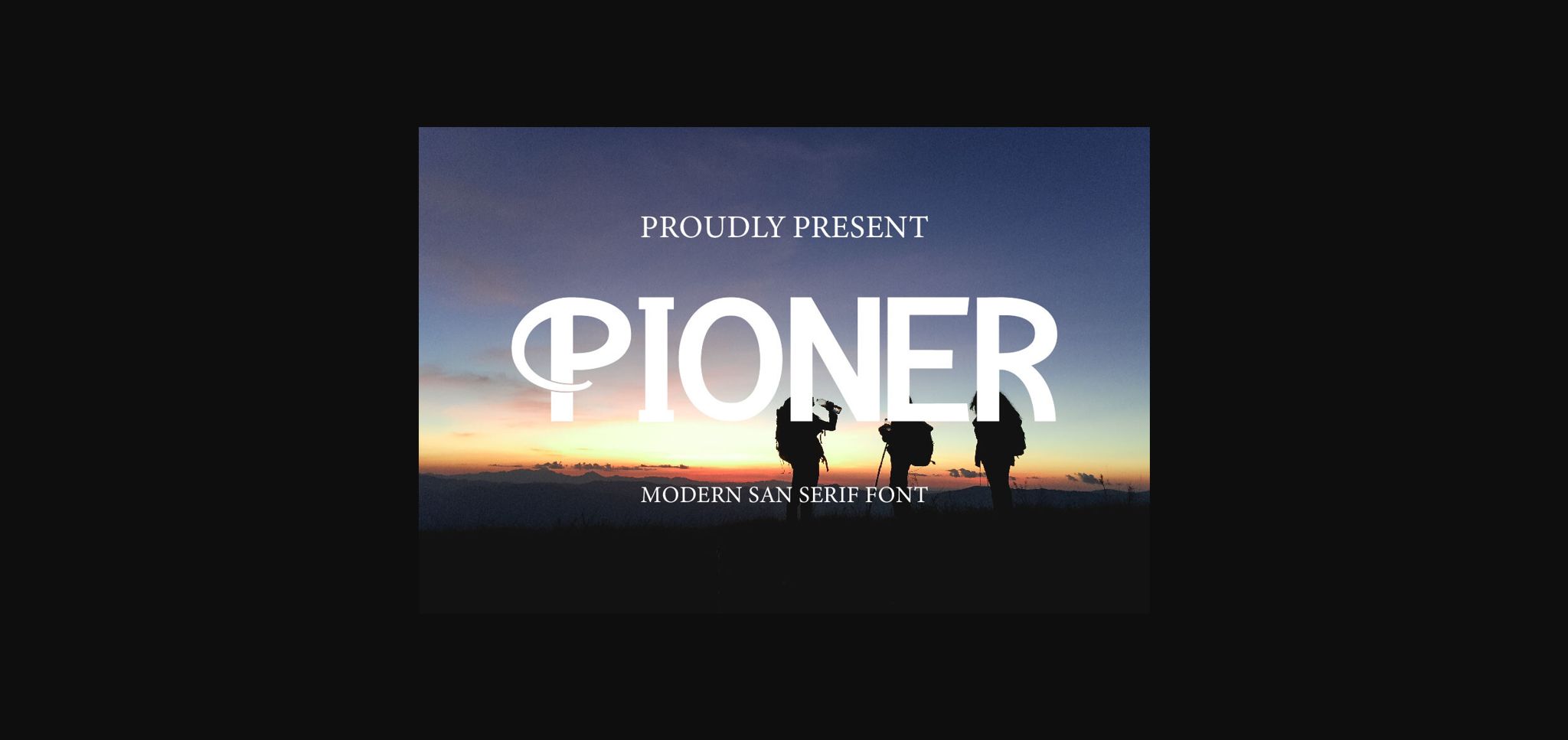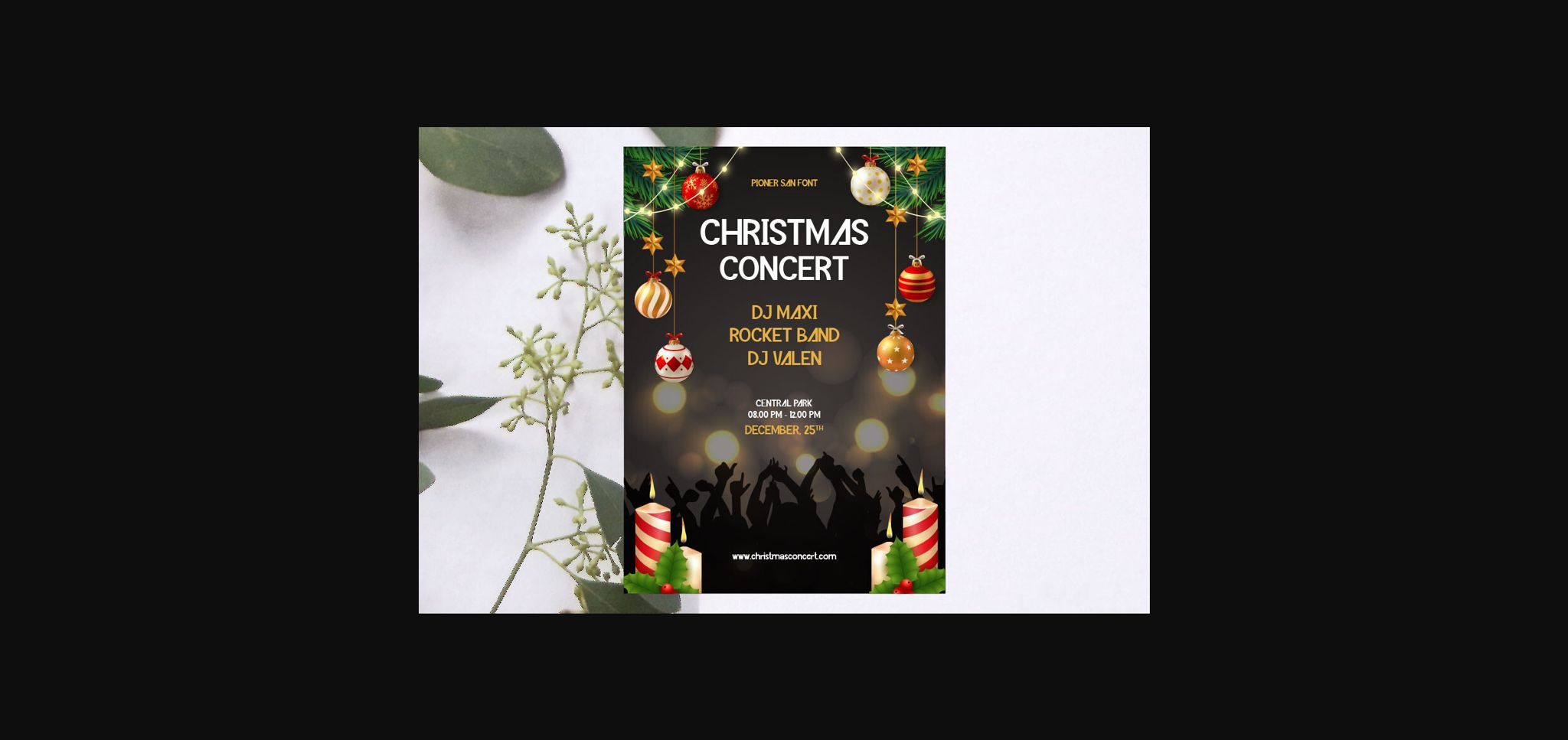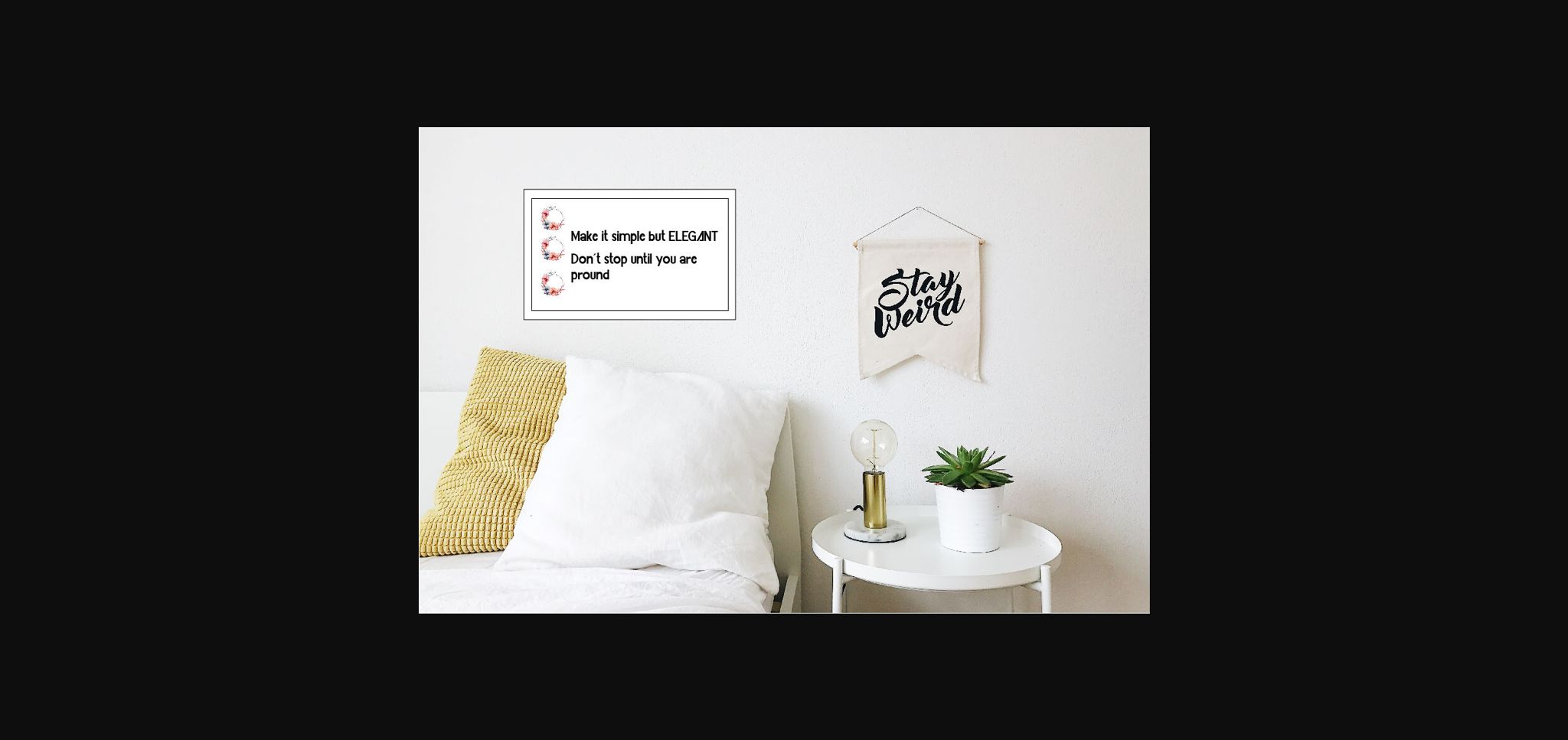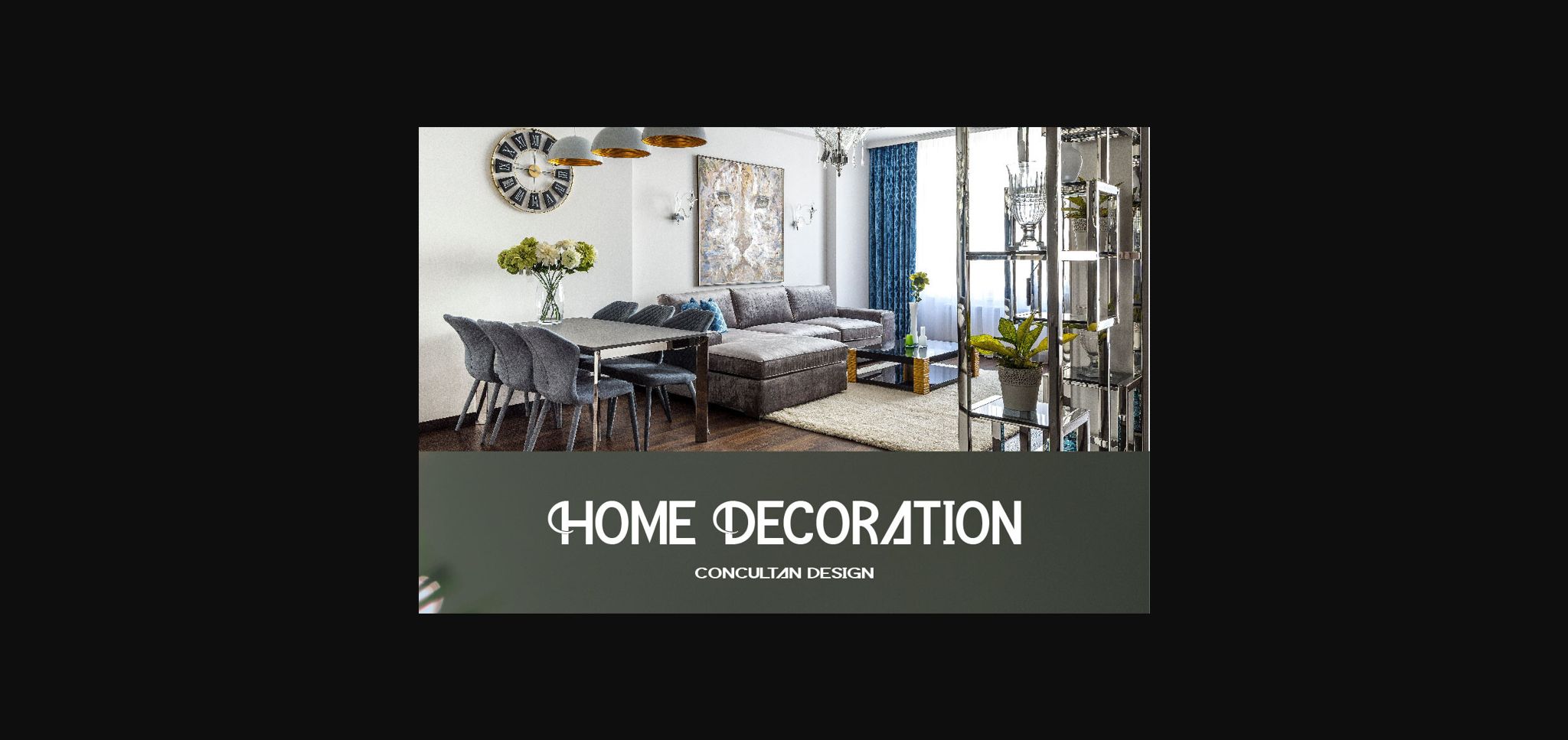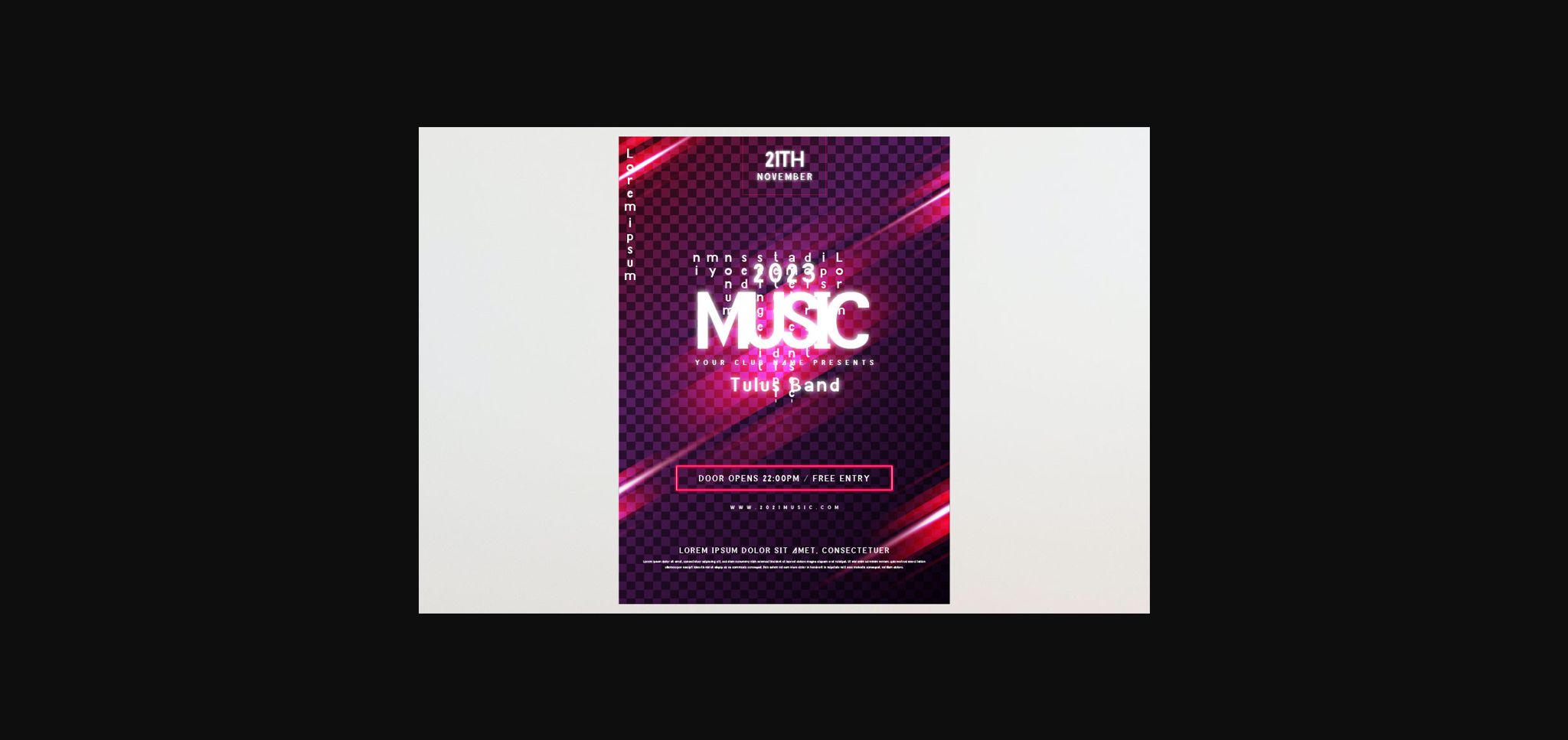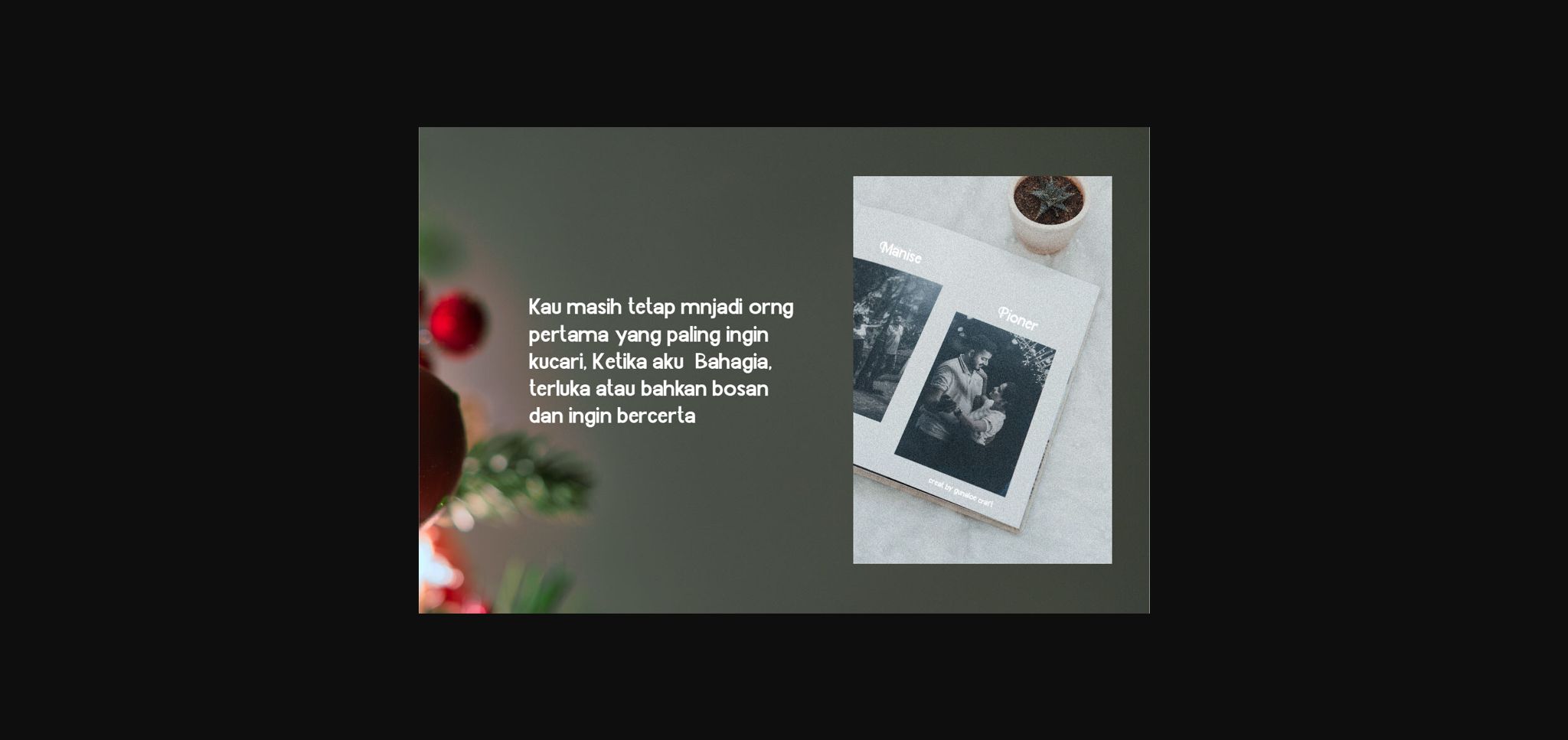
About Pioner Font
Introducing Pioner font. This font is an elegant and beautiful Sans Serif font, manufactured by Gunalocraft. Itt is ideal for a wide variety of projects, such as logo, wedding, typography quotes, magazine or book covers, website headers, clothing, branding, packaging design, and so much more.